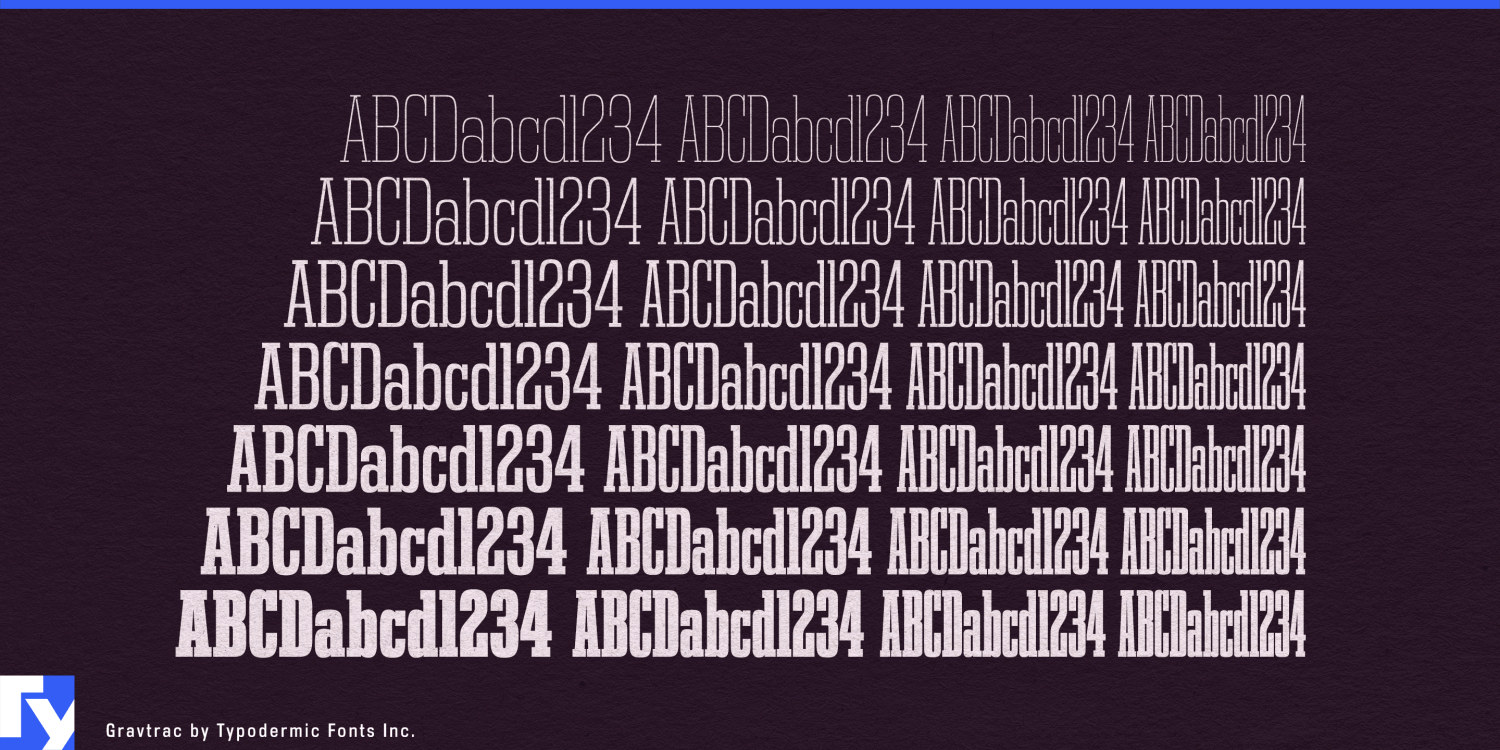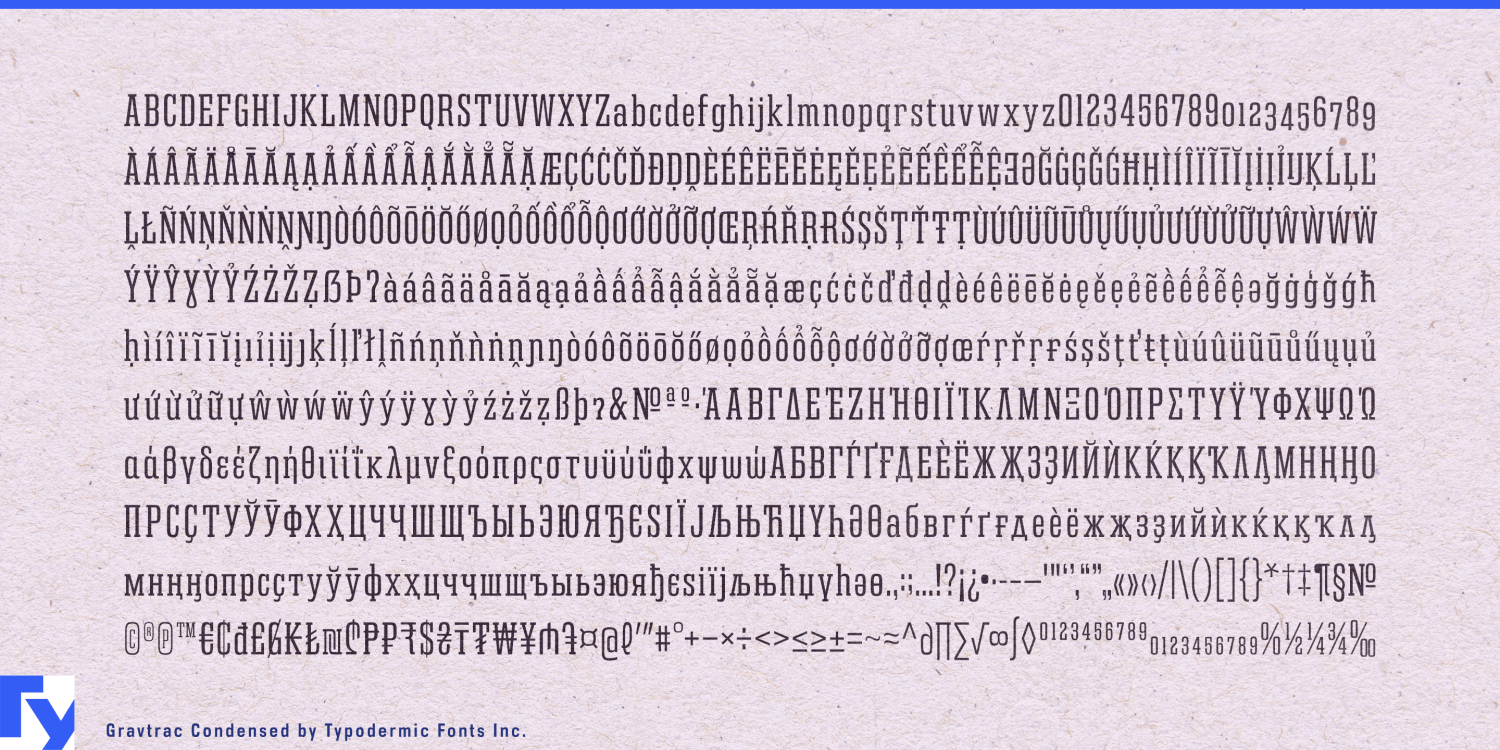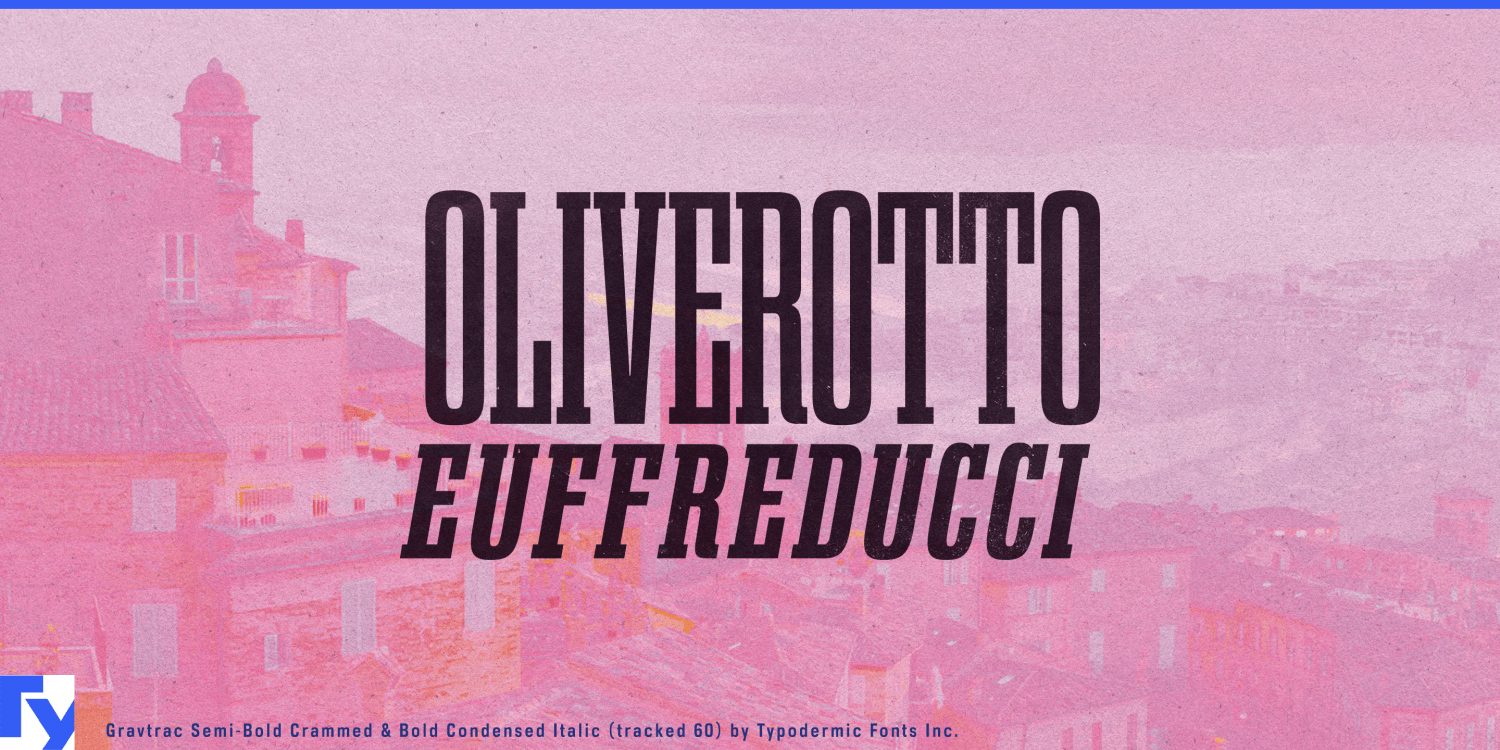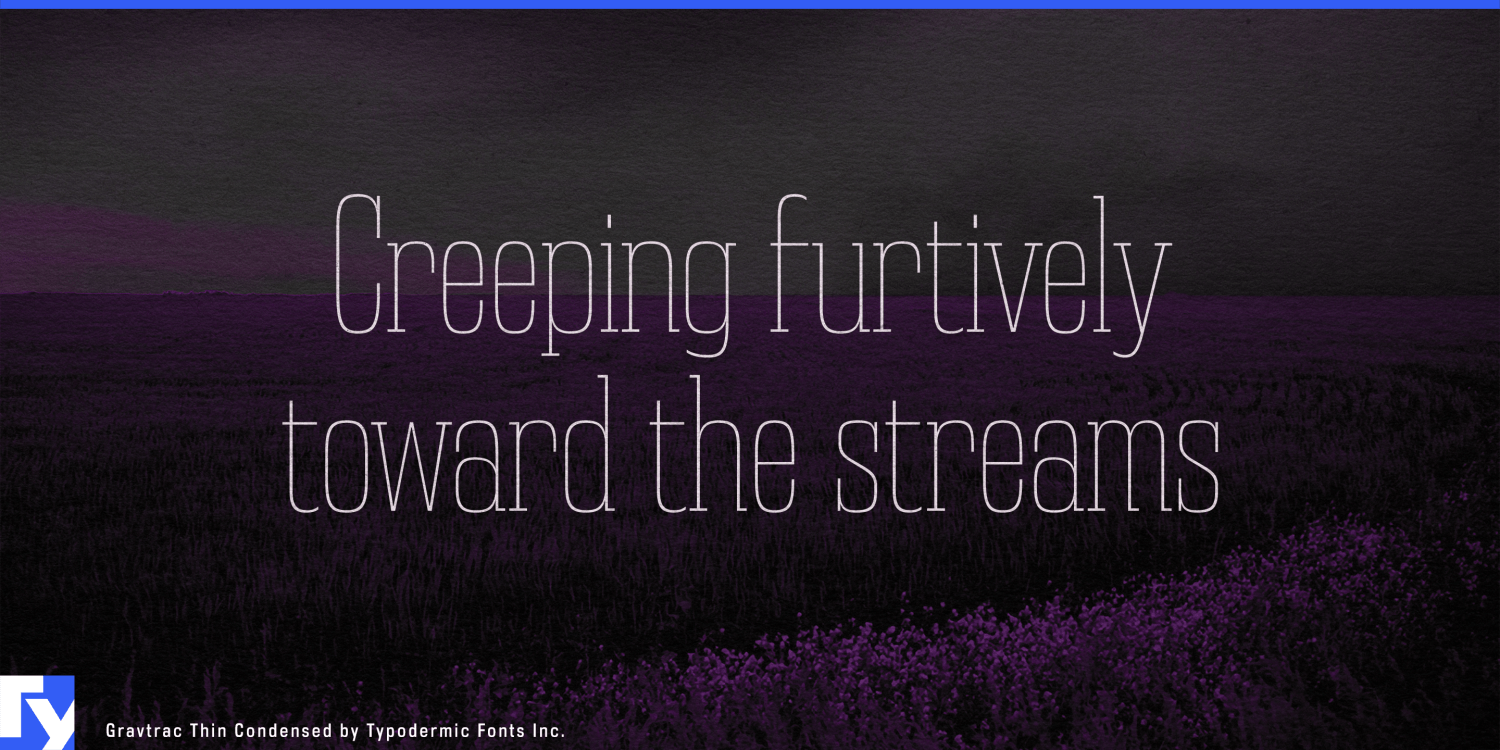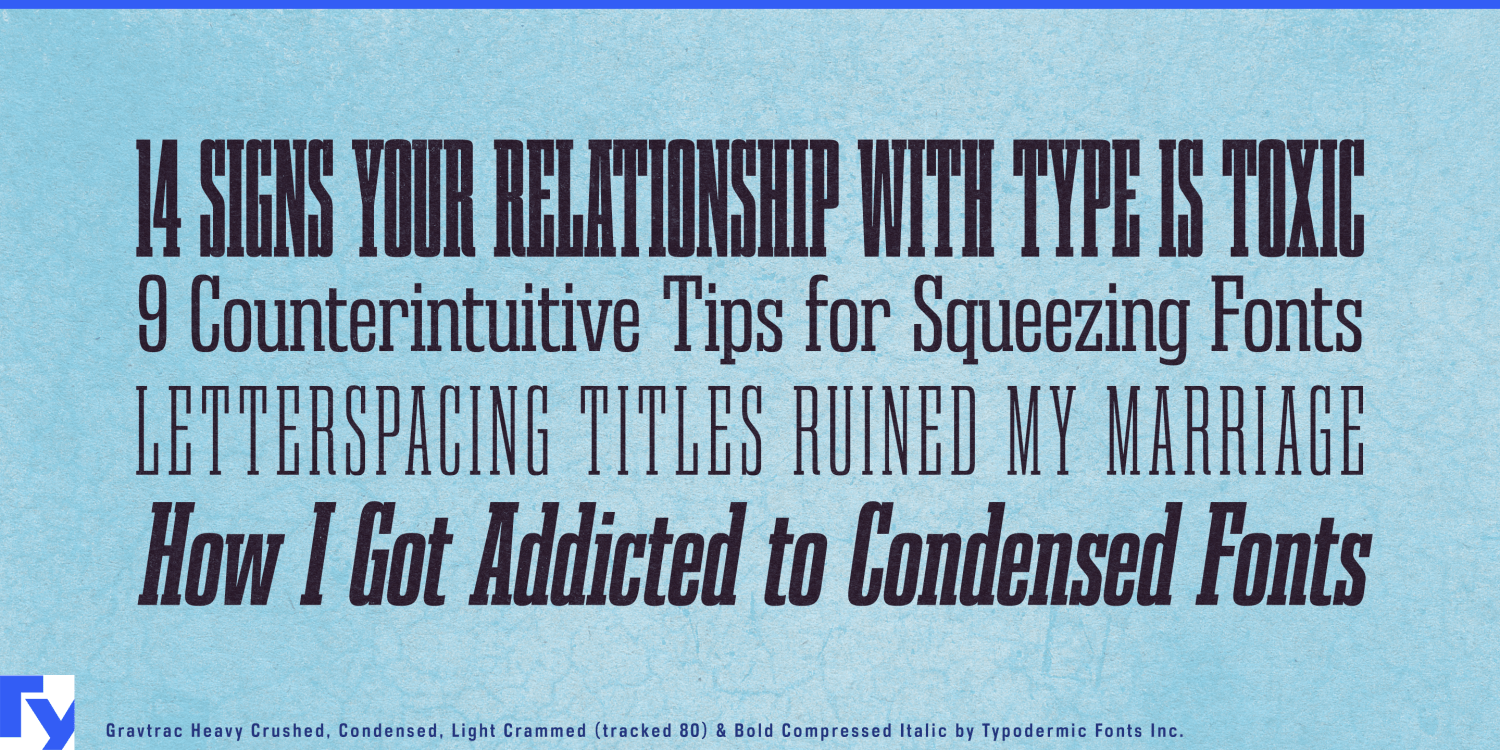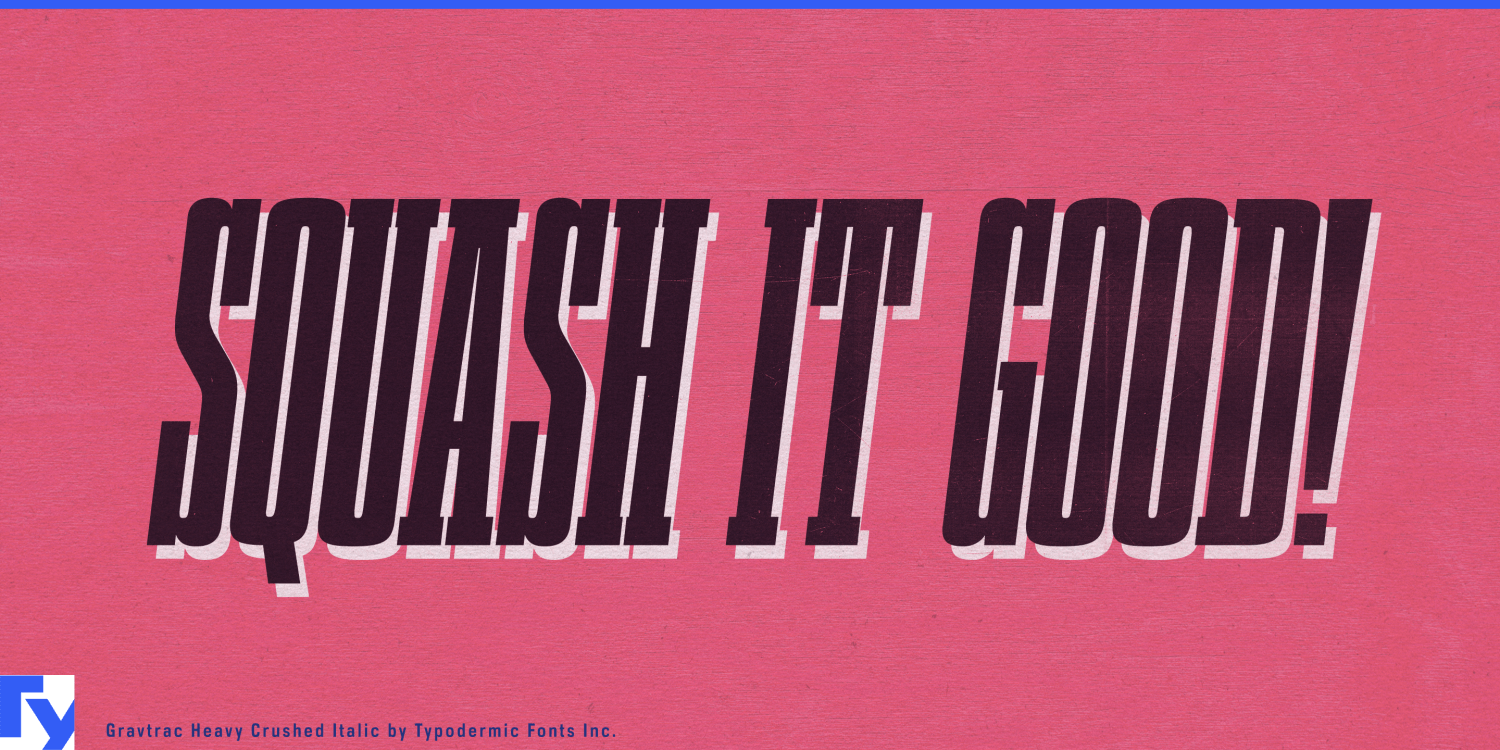
Gravtrac
About Gravtrac
Enter the world of Gravtrac, a typeface that doesn’t just occupy space—it commands it. This is typography distilled to its purest essence, a masterclass in efficiency that proves less isn’t just more; it’s everything. Gravtrac…